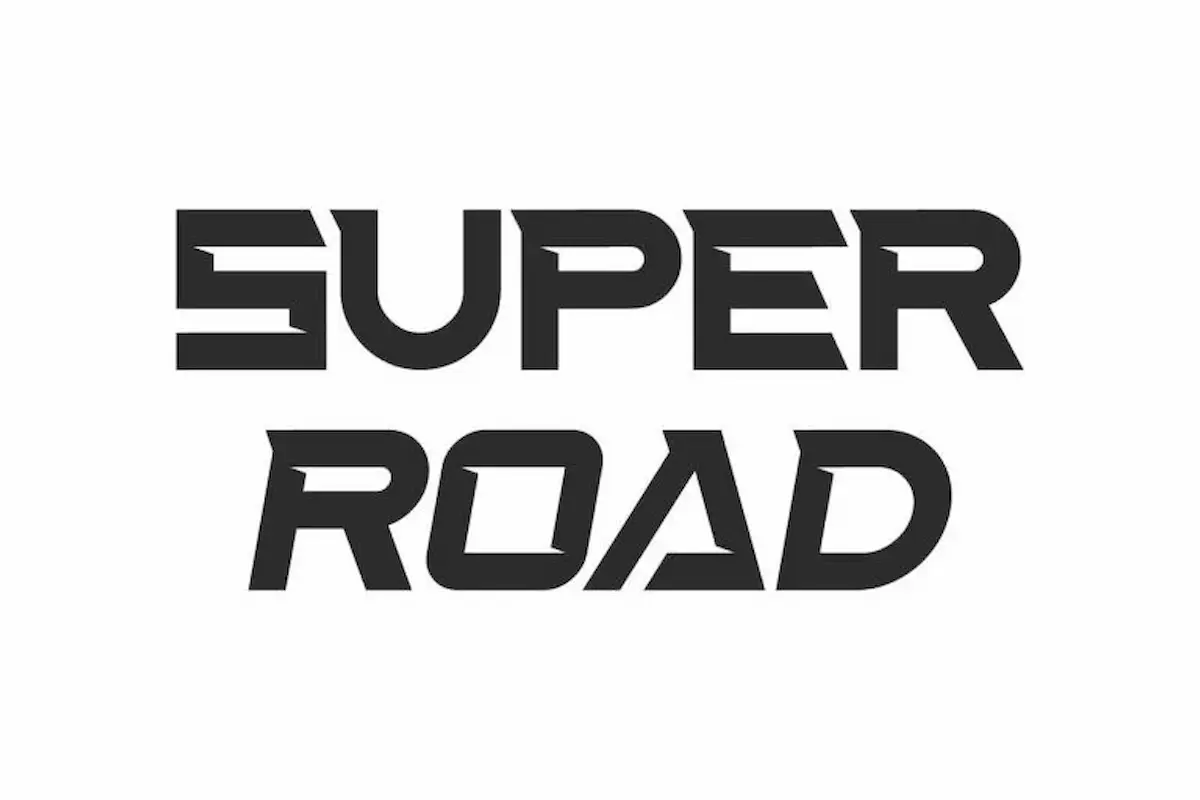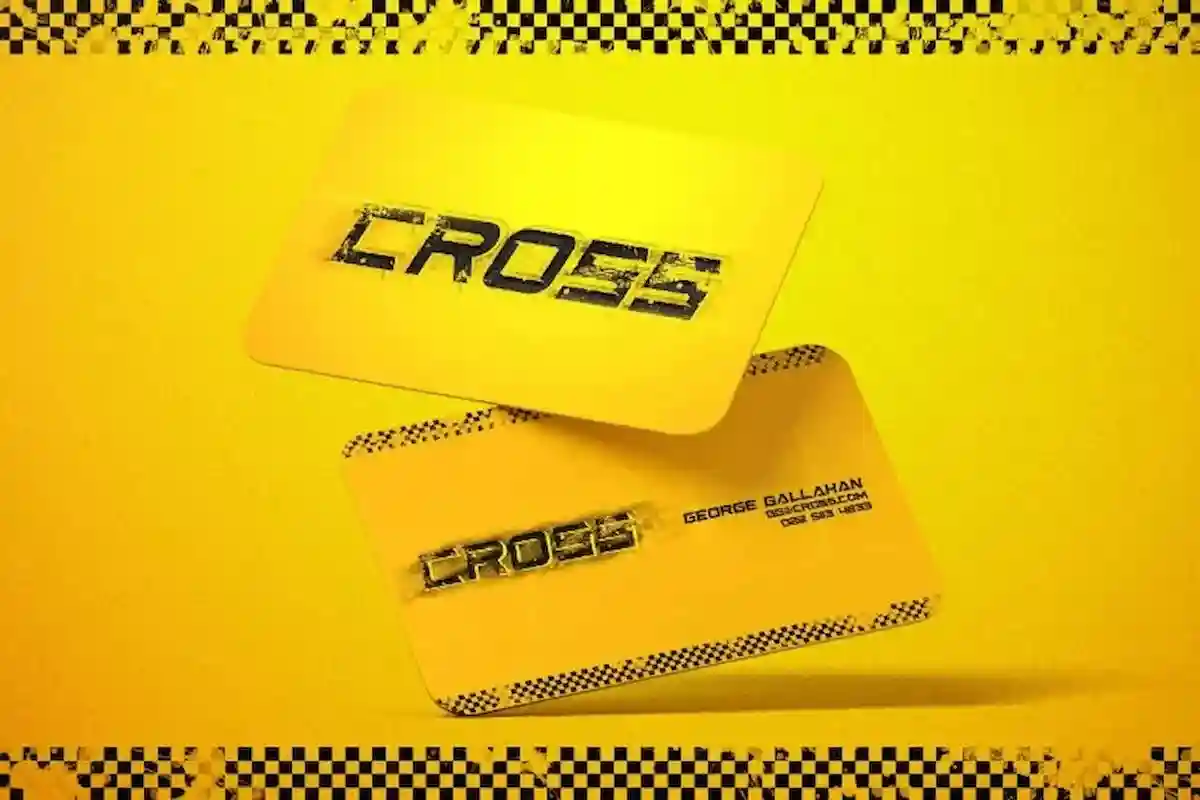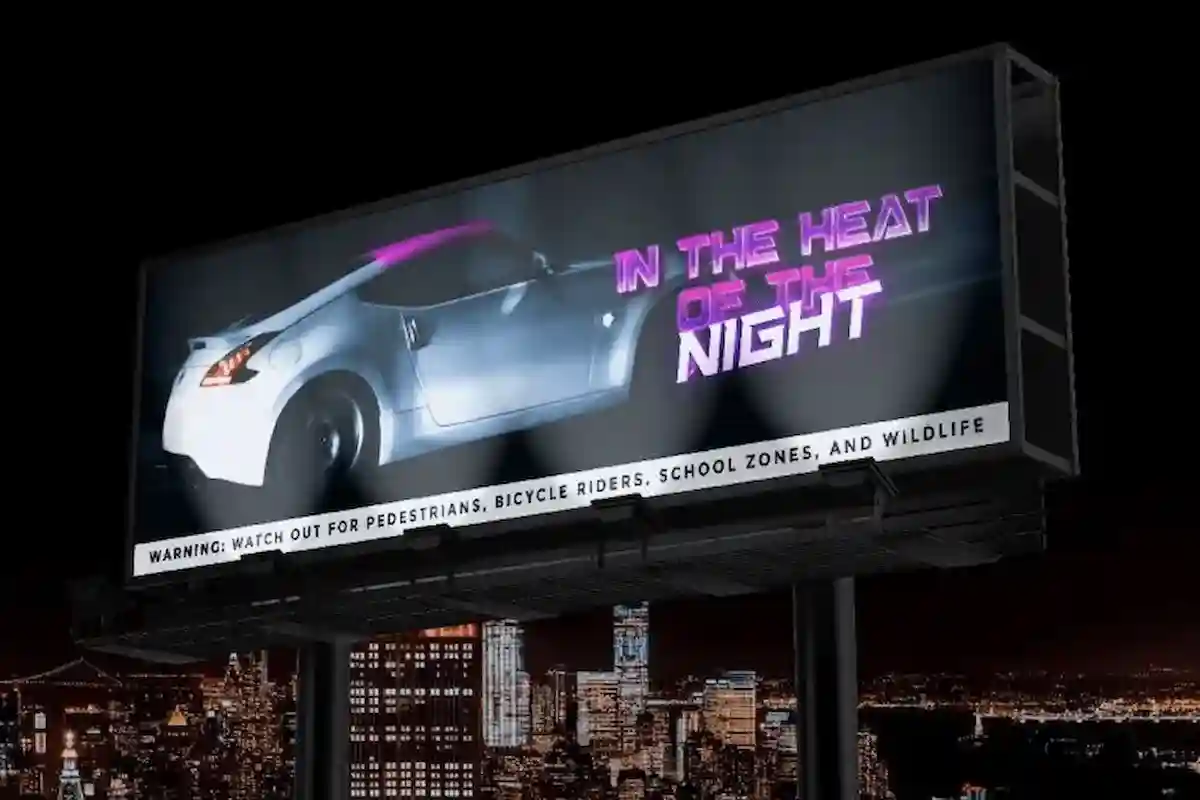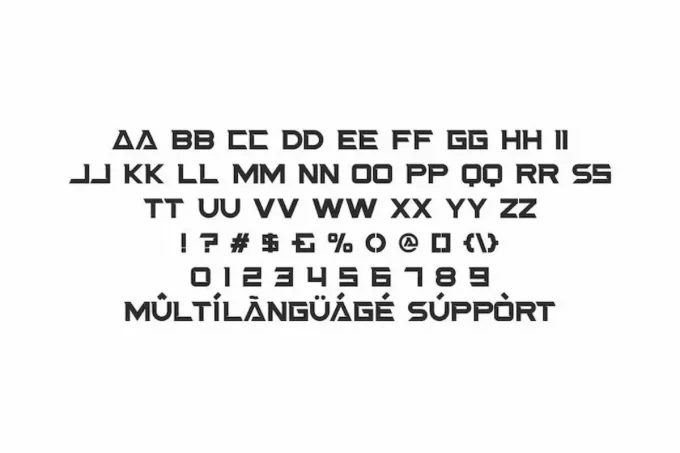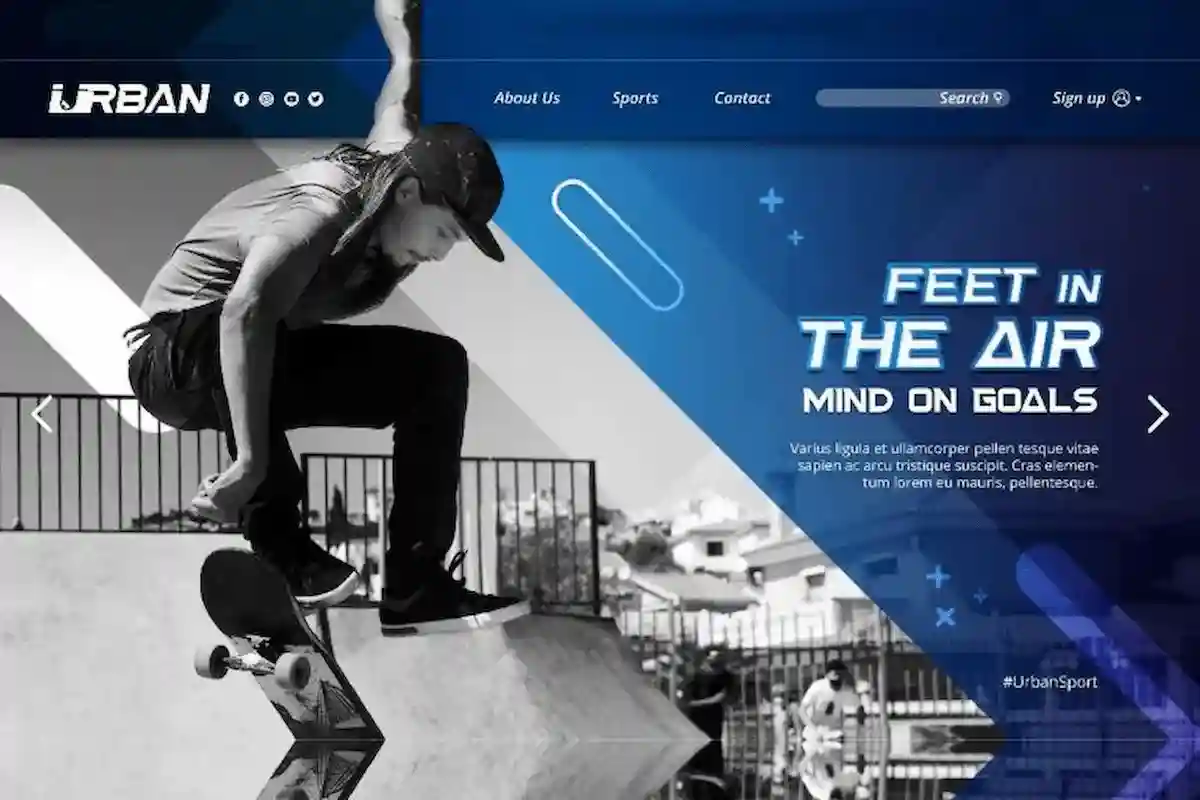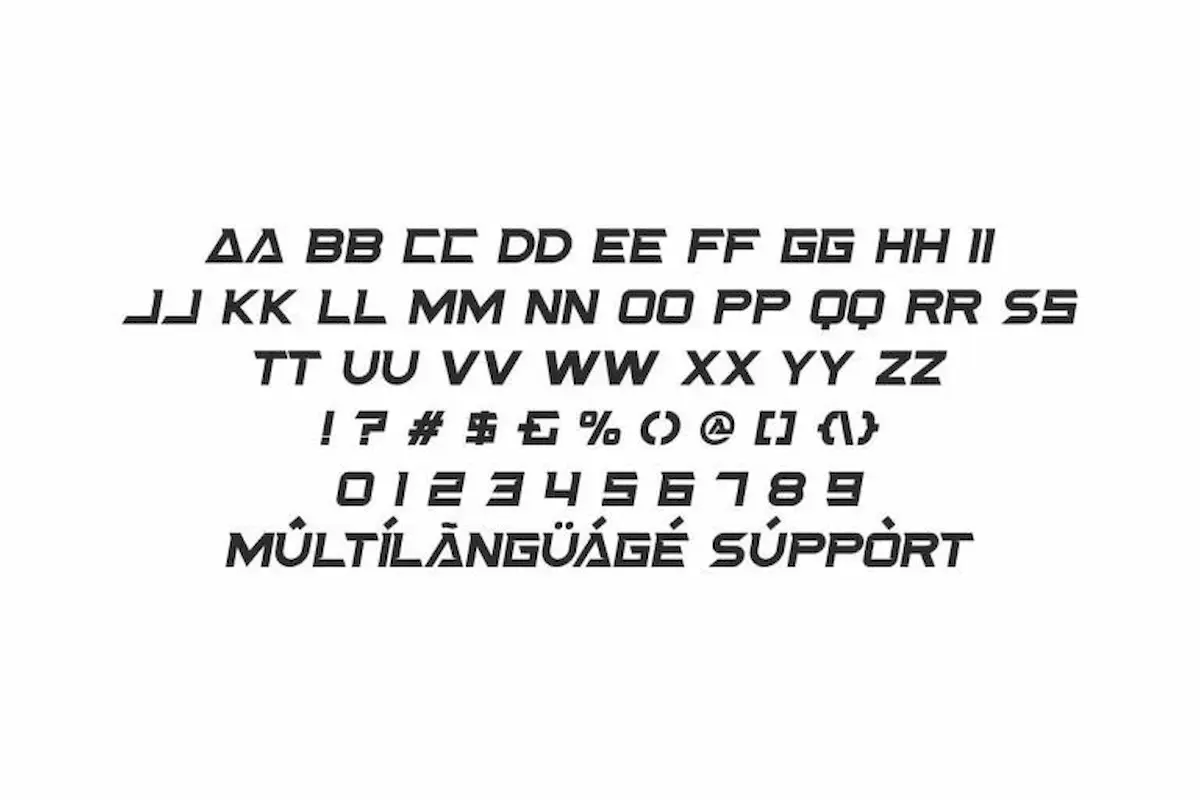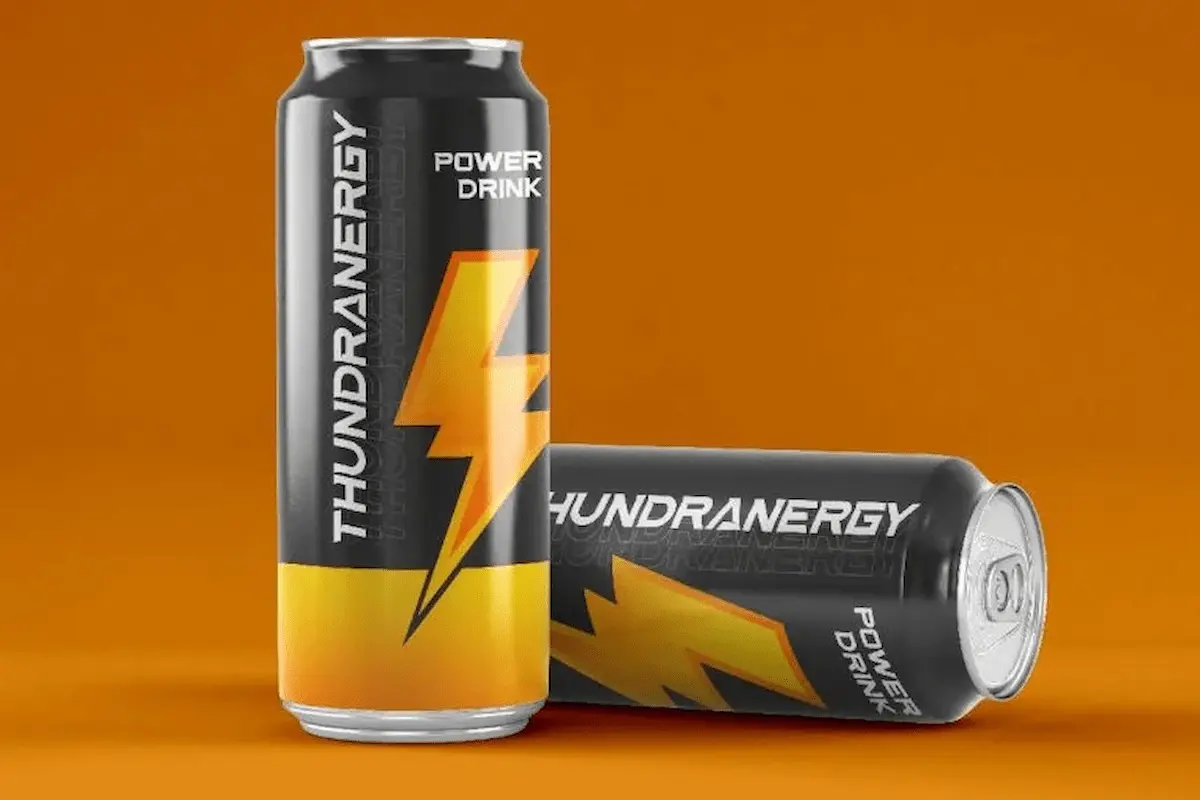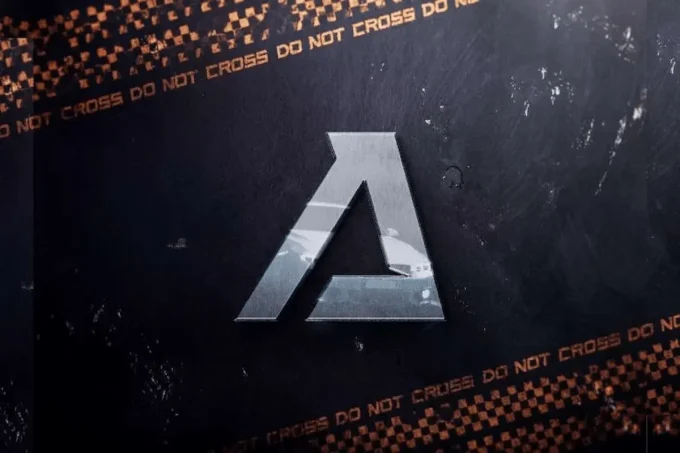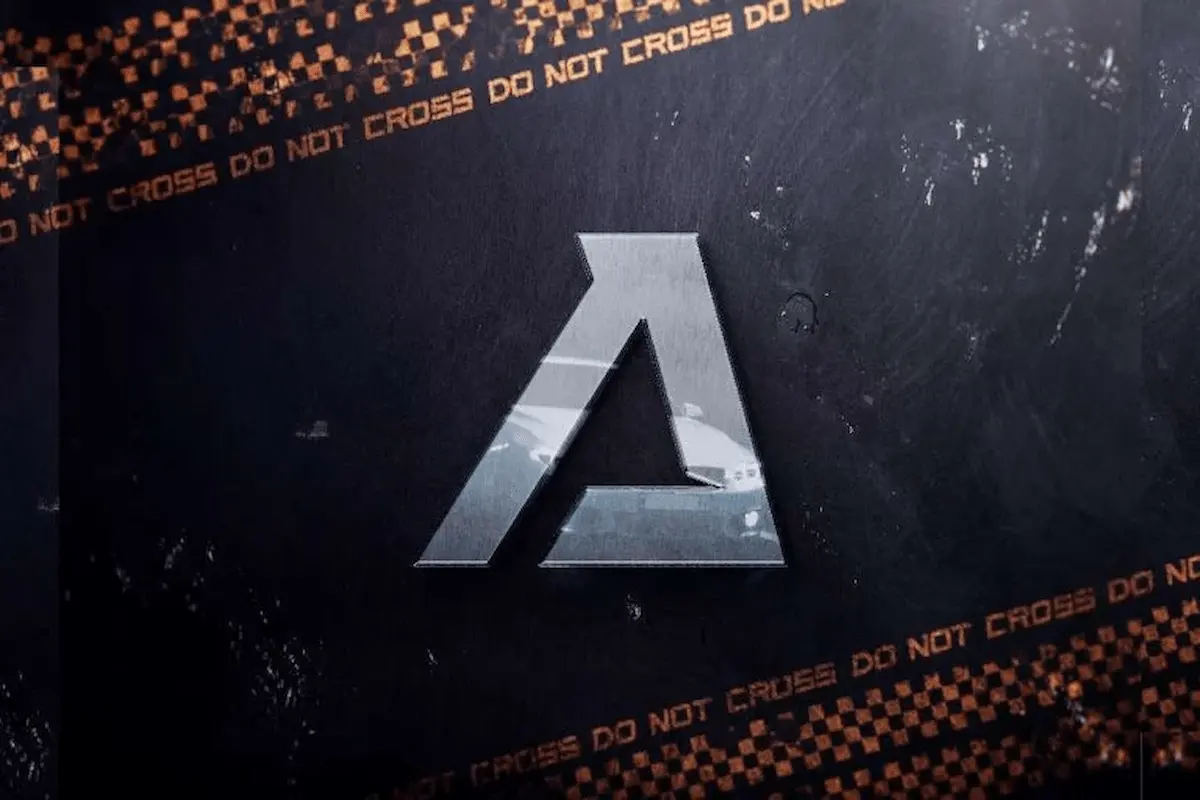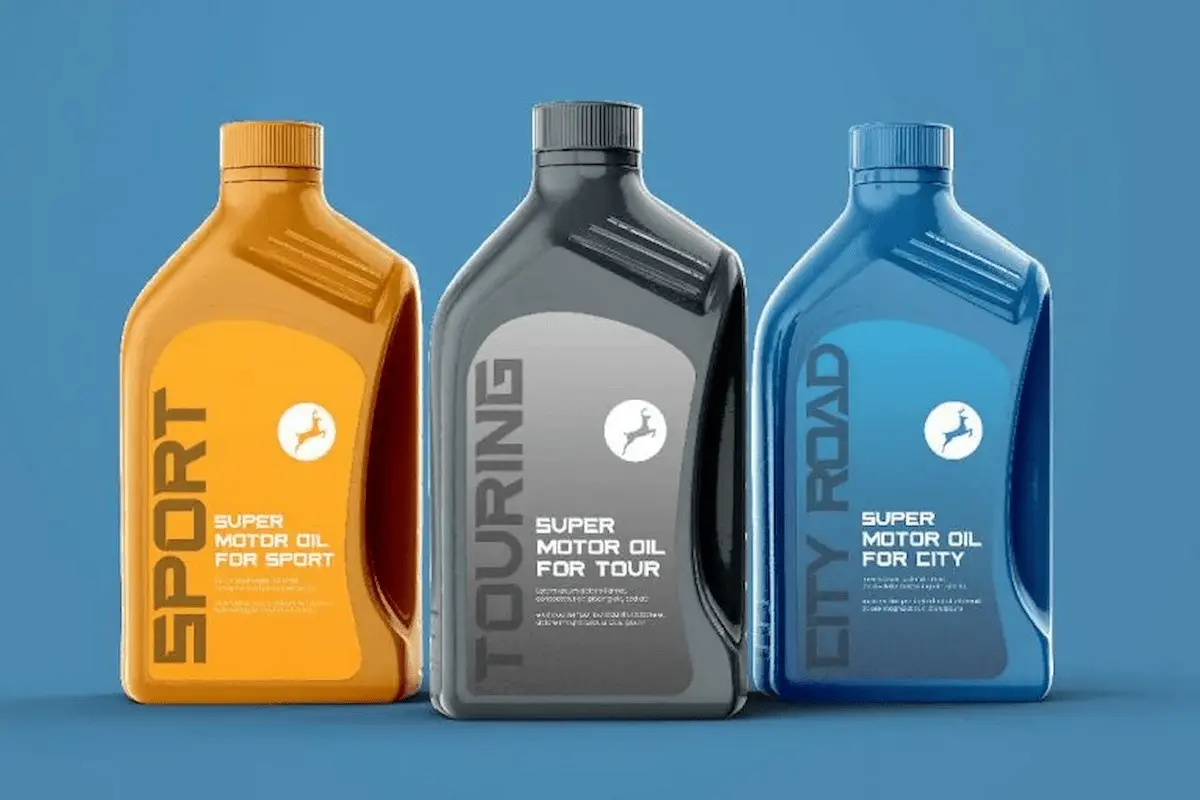
Super Road Font a modern sans serif display font with strong style by NihStudio, made in 2021. Great for many industries : sports, racing, technology, entertainments etc
Super Road Font is a bold and sporty style font family originally designed by NihStudio. Super Road Font has 2 different styles, Regular and Italic. It will be suitable for many business and industries including sports, technology, entertainments etc On the package you will get :
Super Road was handcrafted here in our Studio, Indonesia.The font will be great for any projects (require extended license) including : branding, logo, stationery, business card, signage, flyer, brochure etc. It comes with awesome characters and ligatures to make it flowless, stunning and unique.